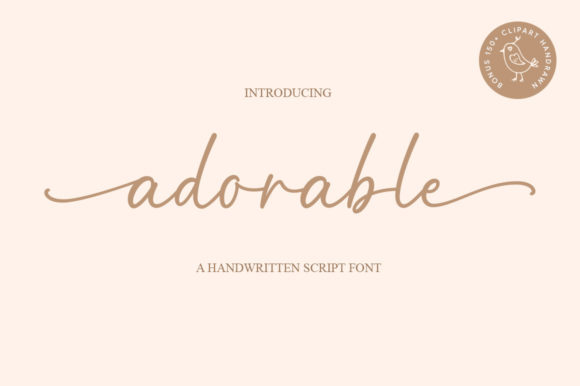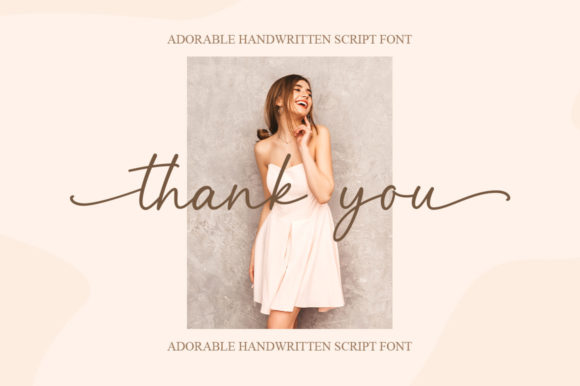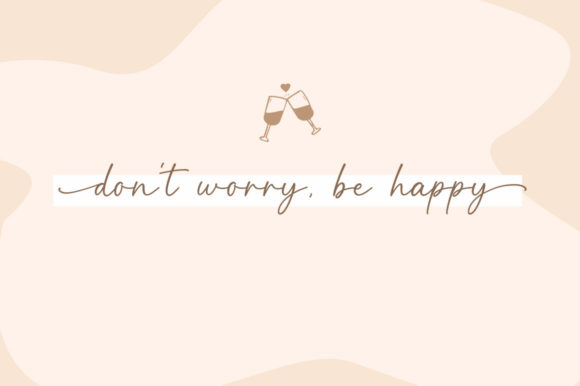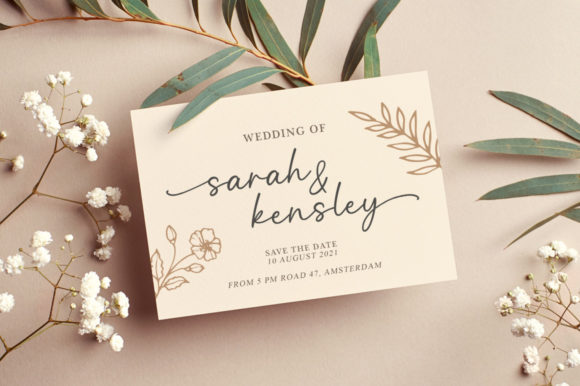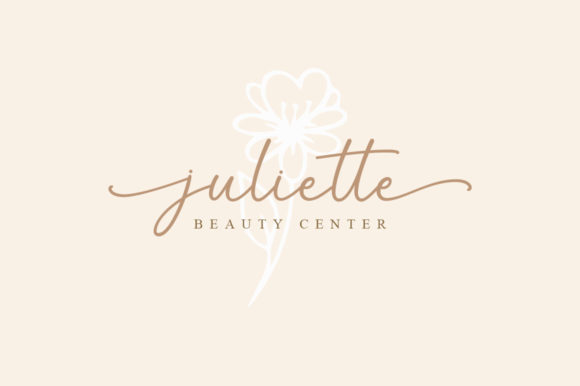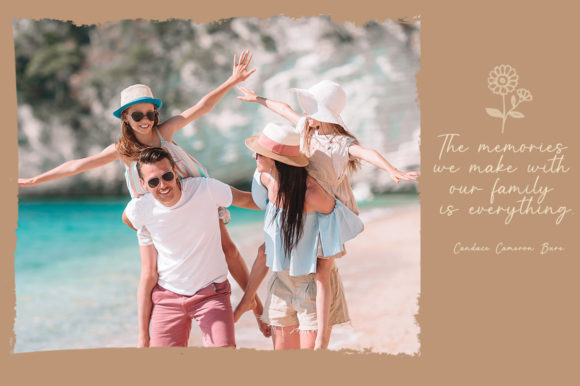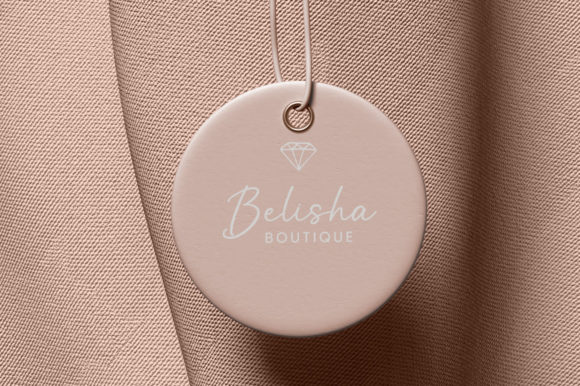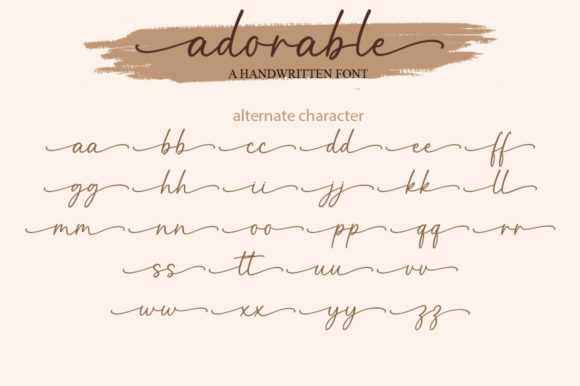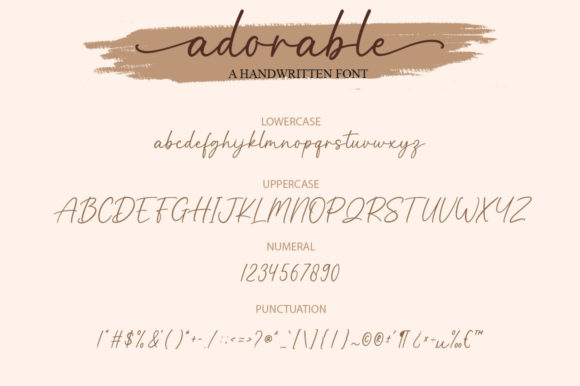
Adorable Font
About Adorable Font
AdorableĀ is an elegant and dainty handwritten font that features sweet and delicate swashes. This original look will appeal to a wide range of crafty ideas, from letterheads and titles, to stationery. Adorable is PUA encoded which means you can access all of the glyphs and swashes with ease!Ā